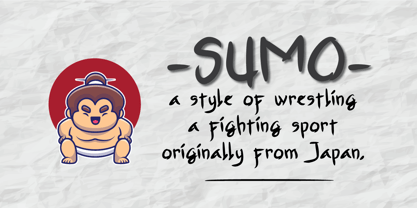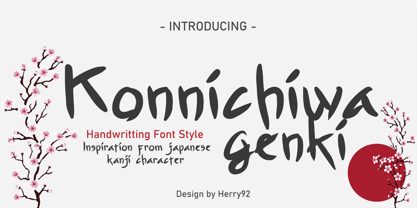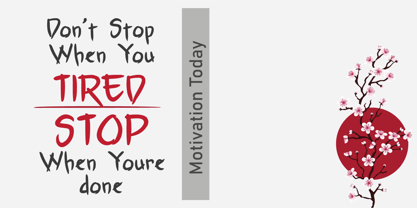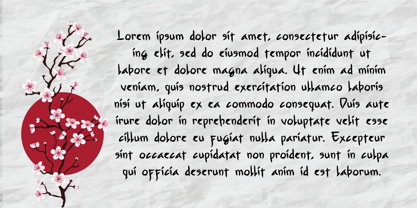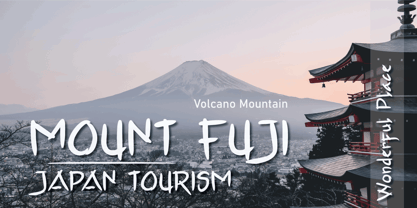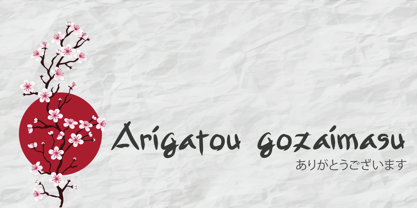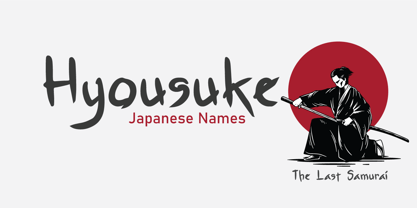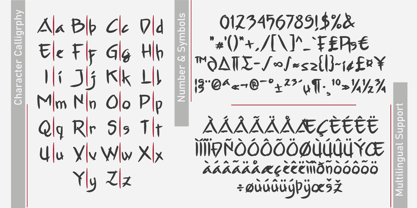
Konnichiwa Genki
by Herry92
The Konnichiwa Genki Font Family was designed by Herry Herry and published by Herry92. Konnichiwa Genki contains 1 styles. More about this family
This font combines handwritten artistry with traditional Japanese aesthetics, creating an appearance that is organic, expressive, and culturally rich. It’s ideal for designs that aim to visually express energy, tradition, and Asian artistic identity. This type of font is typically used for: Designs with cultural themes, and Editorial design or product packaging that aims for an artistic and authentic feel.
Designers: Herry Herry
Foundry: Herry92